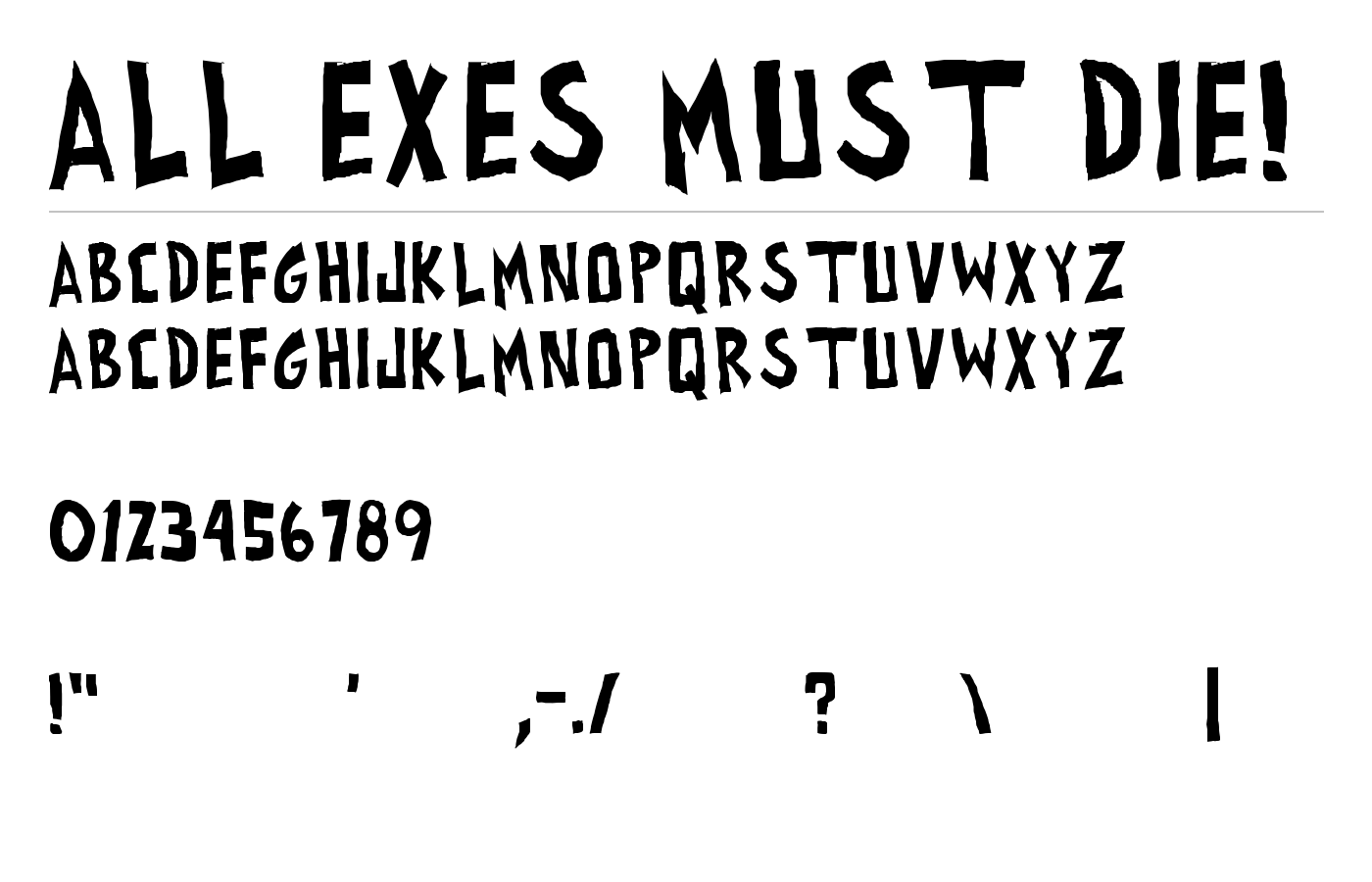
"All Exes Must Die!" is a bold and edgy sans serif font with an uneven, hand-crafted feel that gives it a raw, rebellious personality. Its irregular stroke widths and distorted letterforms make it perfect for expressive, unconventional designs like posters, logos, or any project seeking a striking, alternative vibe. This font works best in large display settings where its unique, energetic style can make a strong visual statement.
| Font family | all exes must die! Font |
| Designer | Andeh Pinkard |